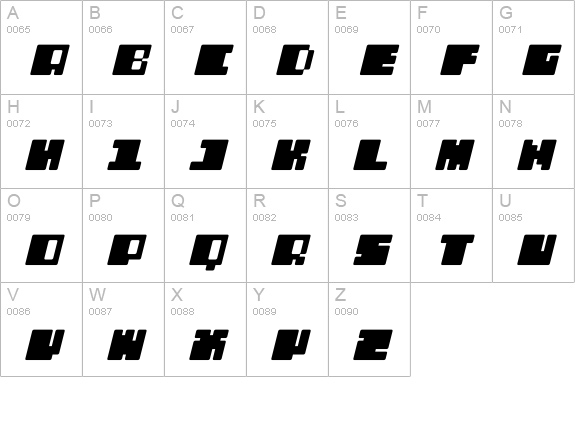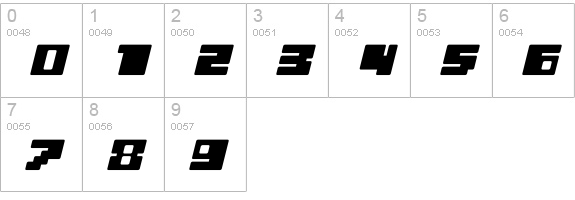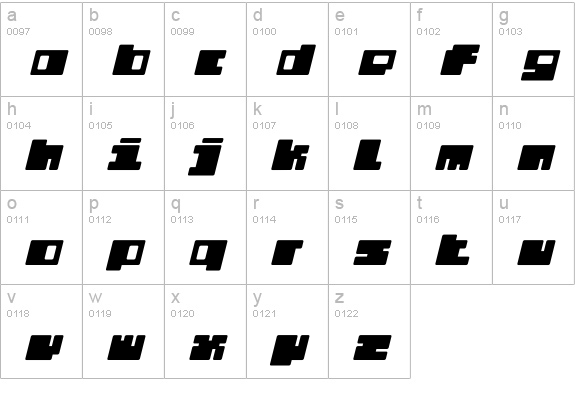
DS PTRLNormalPlus Font Details
DS PTRLNormalPlus font is a modern and stylish typeface that offers a perfect blend of elegance and readability. With its clean lines and sleek design, this font is ideal for a wide range of design projects, from branding to editorial layouts. The versatility of DS PTRLNormalPlus makes it a fantastic choice for both digital and print applications. What's even better is that DS PTRLNormalPlus font is available for free download at FontsMarket.com. This means you can easily access this high-quality font without any cost, making it a valuable addition to your design toolkit. Don't miss out on the opportunity to enhance your projects with the timeless appeal of DS PTRLNormalPlus font. Download it today and elevate your designs to the next level.